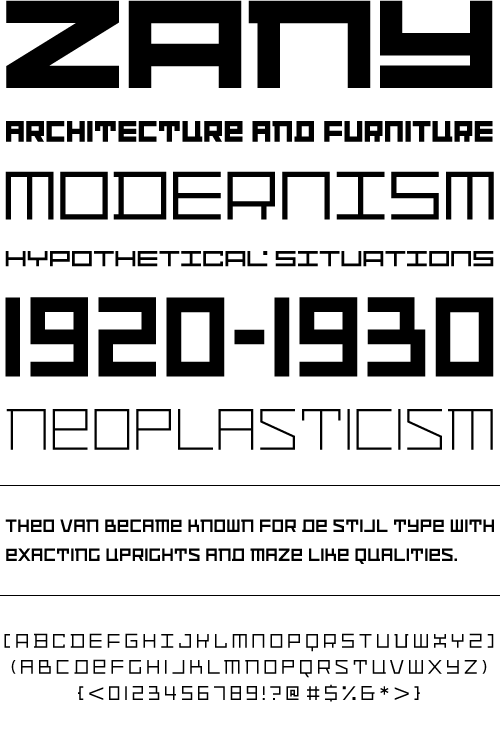
Distill
Distill draws its inspiration mainly from Theo van Doesburg's De Stijl era lettering. The type he designed for the Aubette Cafe, De Stijl Magazine, etc was used as a starting point and then expanded upon. While this typeface was inspired by historical references, it also has the ability to invoke a contemporary feel under the right conditions. Distill will work hard whether you are designing a neo-constructivist poster or a futuristic website. Distill is a family of 12 fonts: 4 weights, each containing condensed, regular, and expanded widths. It also features several alternate characters. Year Designed: 2009 Weights: Thin, Light, Medium, Bold, Condensed Thin, Condensed Light, Condensed Medium, Condensed Bold, Expanded Thin, Expanded Light, Expanded Medium, Expanded Bold Formats Available: OpenType Price: Family - $69.95 USD Single weight - $9.95 USD Purchase Now: MyFonts.com YouWorkForThem |